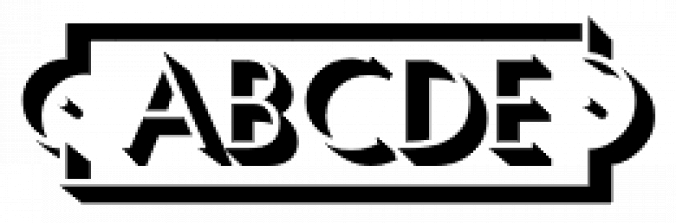
Publisher: Page Studio Graphics
Monogram font provides a striking effect, giving your monogram or business logo a custom-designed look. A bordered font includes a choice of components to project your own individuality. The parts align automatically as you press the keys.